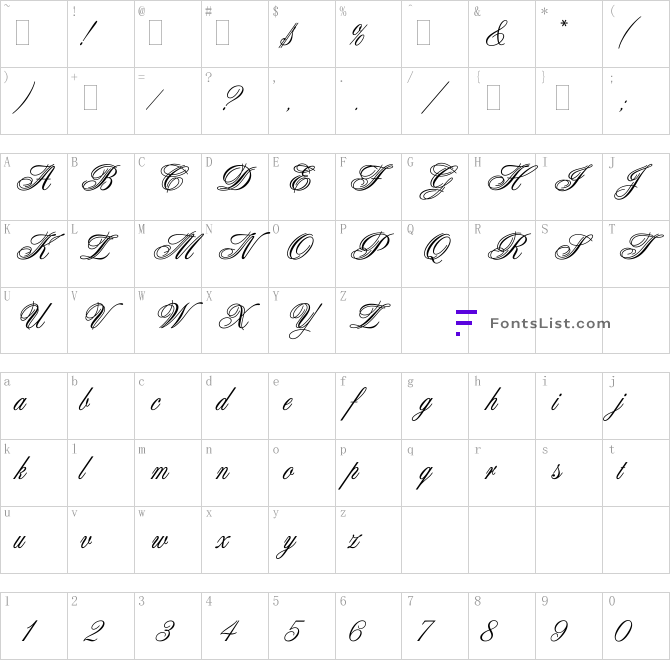
- Font Name:Aristocrat LET
Aristocrat-LET-Plain-10.ttf is a very beautiful artistic font, Aristocrat-LET-Plain-10.ttf is widely used in the design and printing of various books and pictures,Aristocrat-LET-Plain-10.ttf has a strong visual impact,Aristocrat-LET-Plain-10.ttf is a commonly used font in newspapers, magazines and books, and is used in posters, e-commerce Poster design, store design, logo design, font design and other fields.Aristocrat-LET-Plain-10.